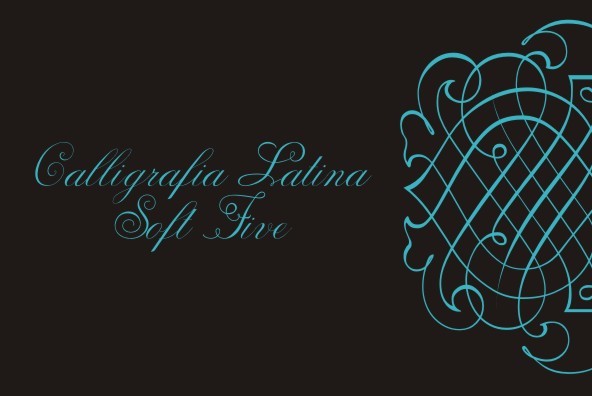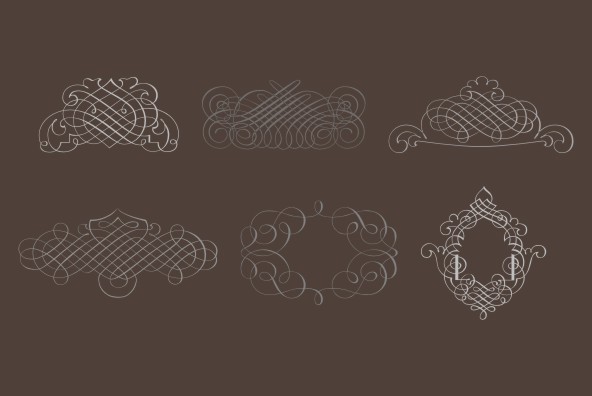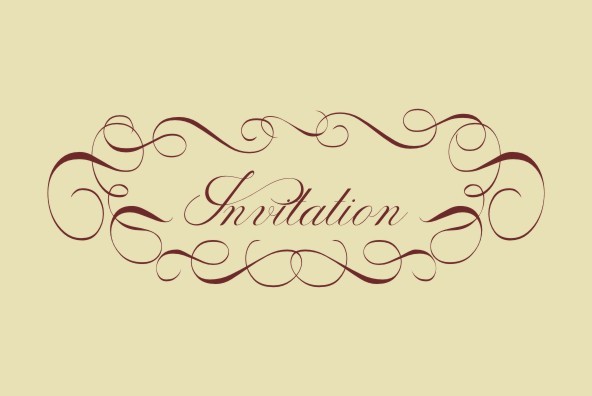
Calligraphia Latina Soft Five
A dingbat/decorative display font featuring many different styles of flourishes and ornaments. Great for a vintage antique feel.